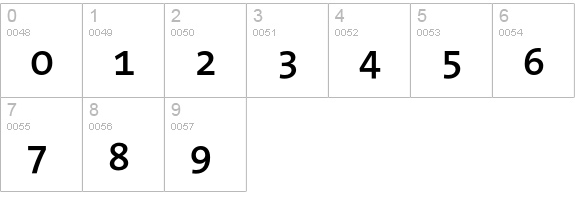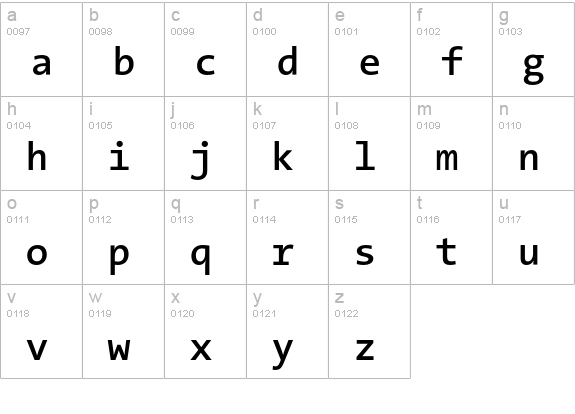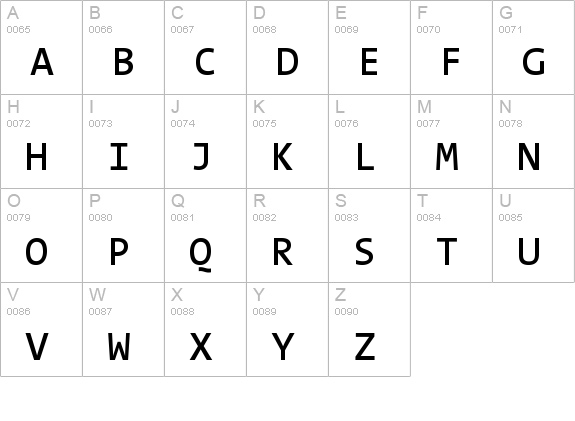
TheSansMono Semi Bold is a strong, high-contrast variant in the TheSansMono typeface family \xE2\x80\x94 well suited to headlines, attention-grabbing titles, and strong calls-to-action.
TheSansMono Semi Bold font is a visually striking typeface that combines the clean lines of a monospaced font with a touch of boldness. Its strong and confident design makes it perfect for a wide range of applications, from coding and programming to editorial design and branding. With its well-defined letterforms and distinct spacing, TheSansMono Semi Bold font is easy to read and highly legible, even at smaller sizes. The semi-bold weight adds an extra level of emphasis, making it ideal for highlighting important information or creating a strong visual impact. This font is not only aesthetically pleasing but also highly functional. Its monospaced nature ensures that every character occupies the same width, allowing for precise alignment and perfect spacing. This makes it an excellent choice for code editors and terminal applications, where readability and consistency are paramount. In addition to its exceptional design qualities, TheSansMono Semi Bold font is also available for free. You can download it easily and conveniently at FontsMarket.com, a trusted source for high-quality and freely available fonts. Whether you're a designer, developer, or simply someone looking to enhance their visual projects, TheSansMono Semi Bold font is a valuable asset that will elevate your work to new heights.